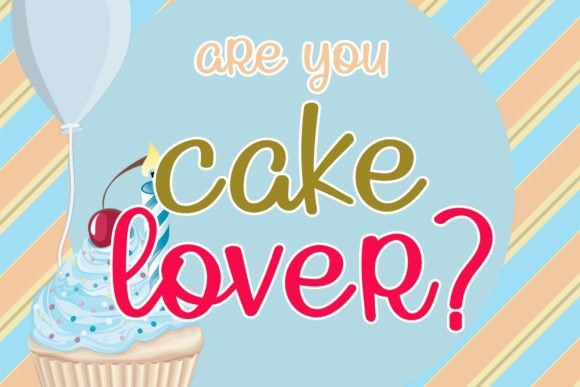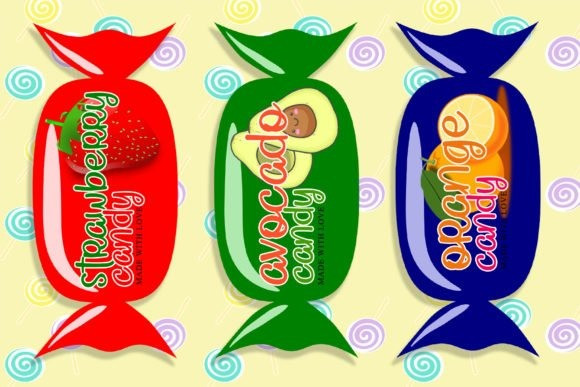
Hello Calligraphys Typeface
Hello Calligraphys Font
the latest style letters are perfect for wall displays, wedding invitations, social media post logos,
advertisements, product packaging, product designs, labels, photography, watermarks, invitations, stationery,
and any project that requires taste handwriting.
Designer Name: Scratchones